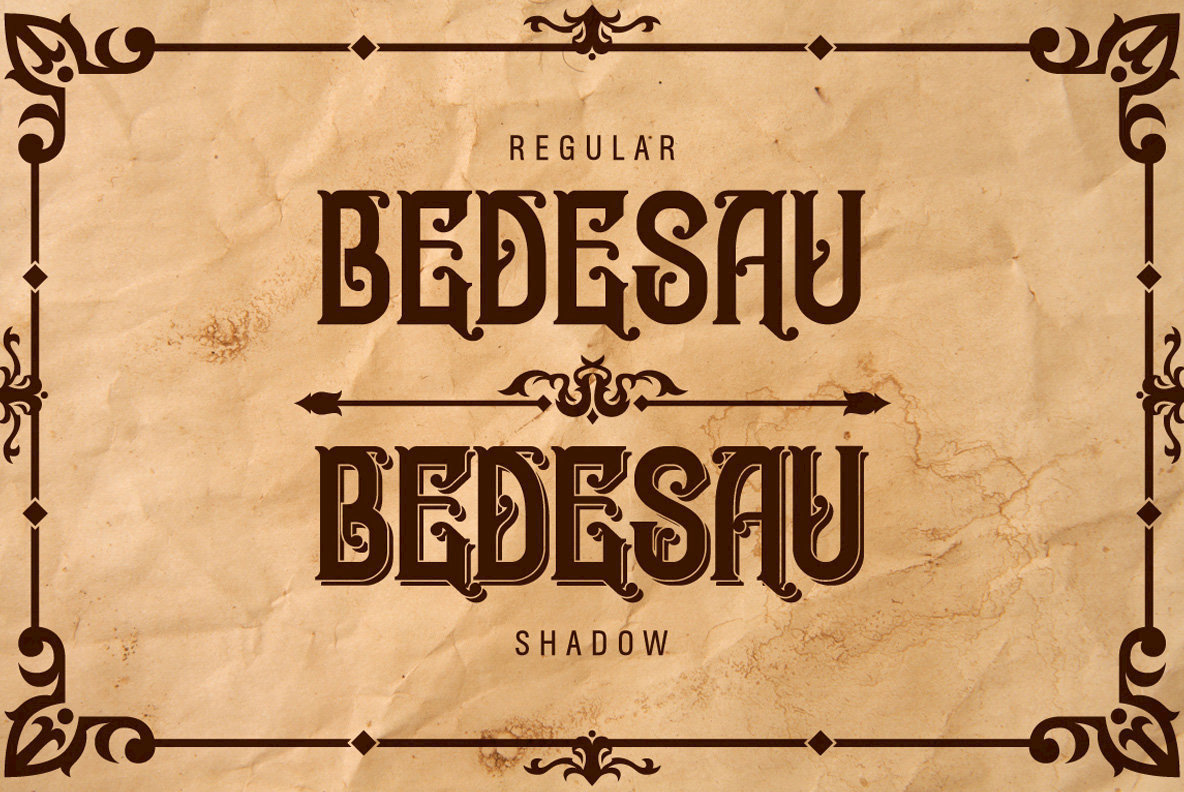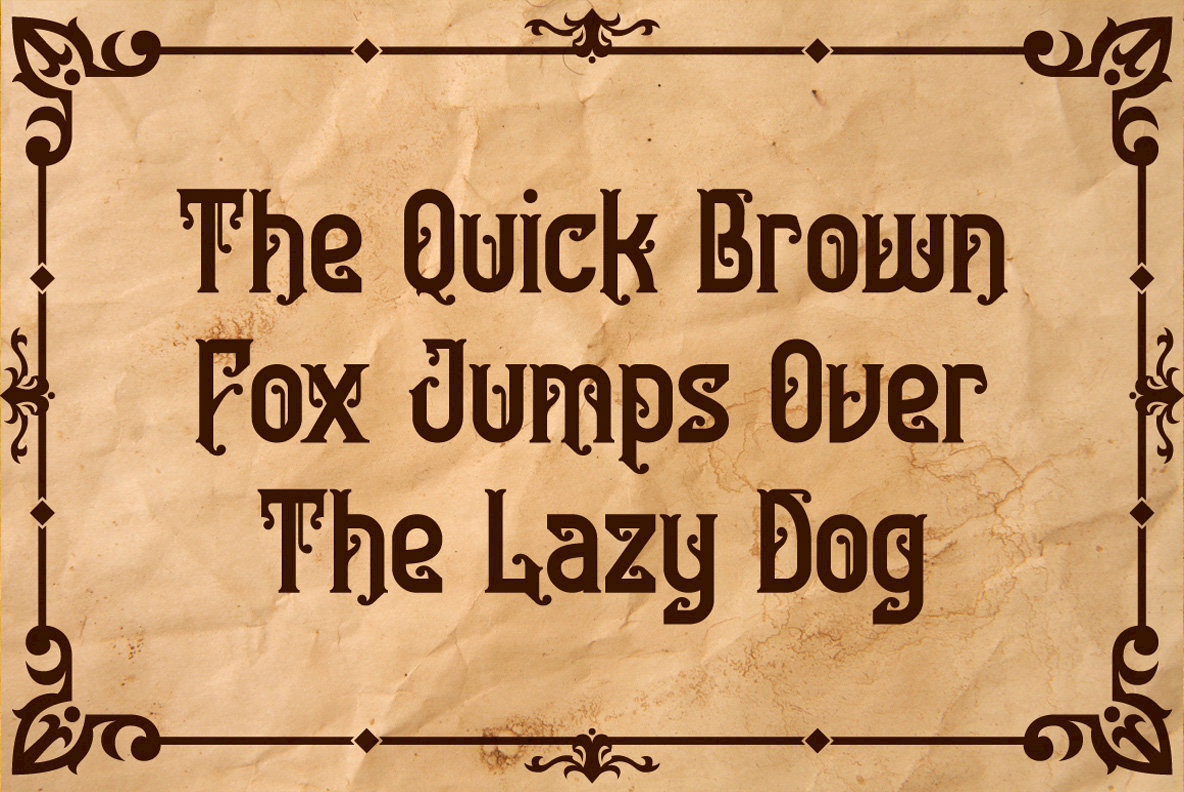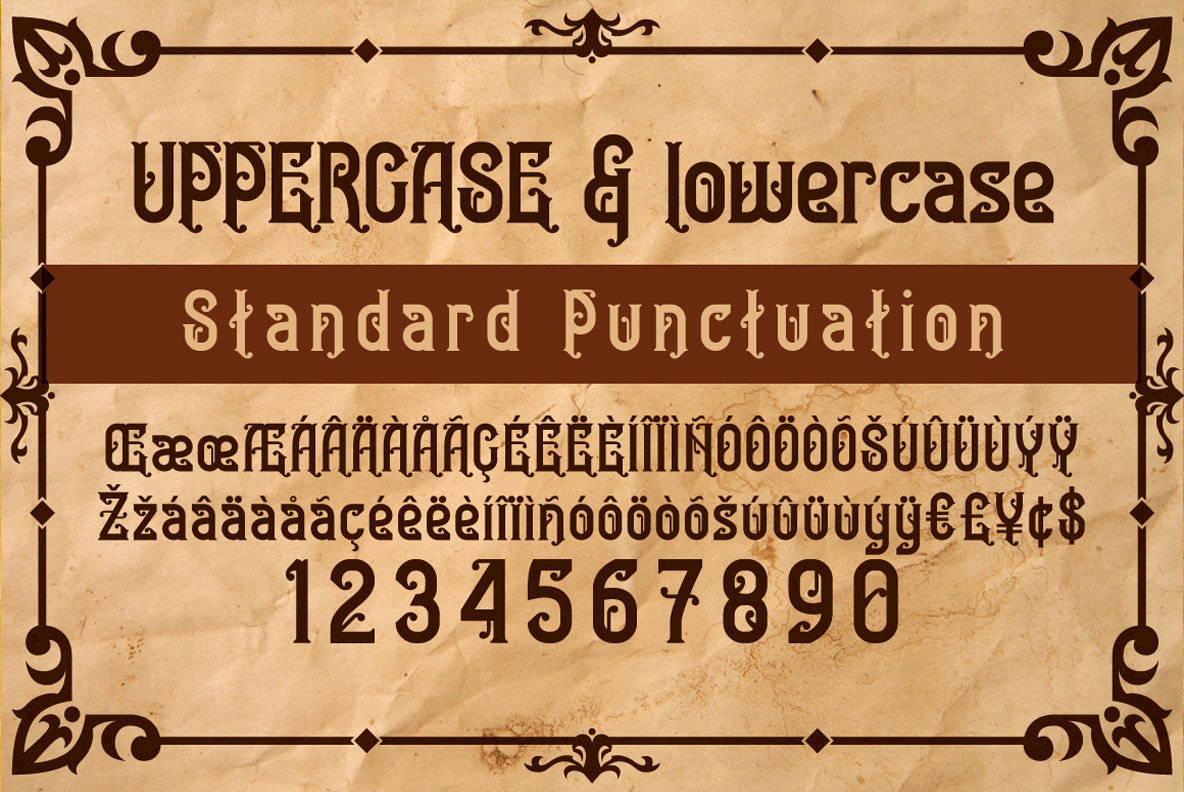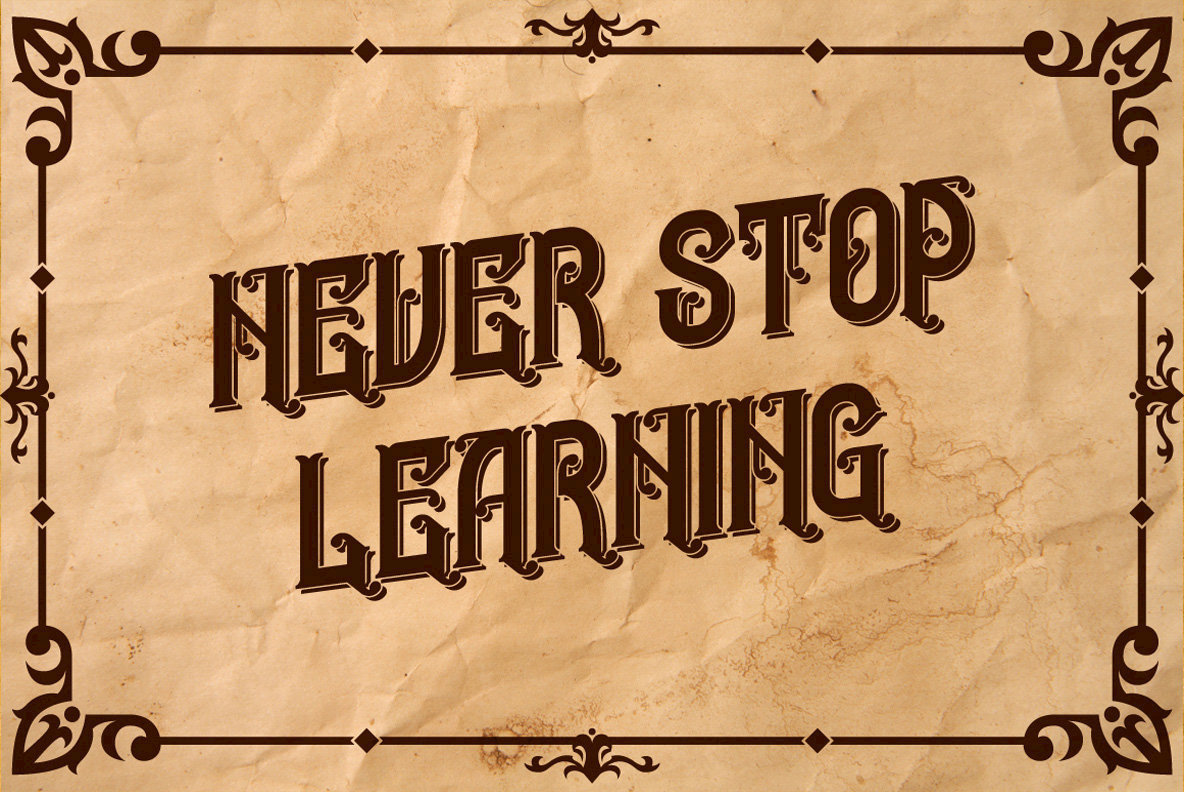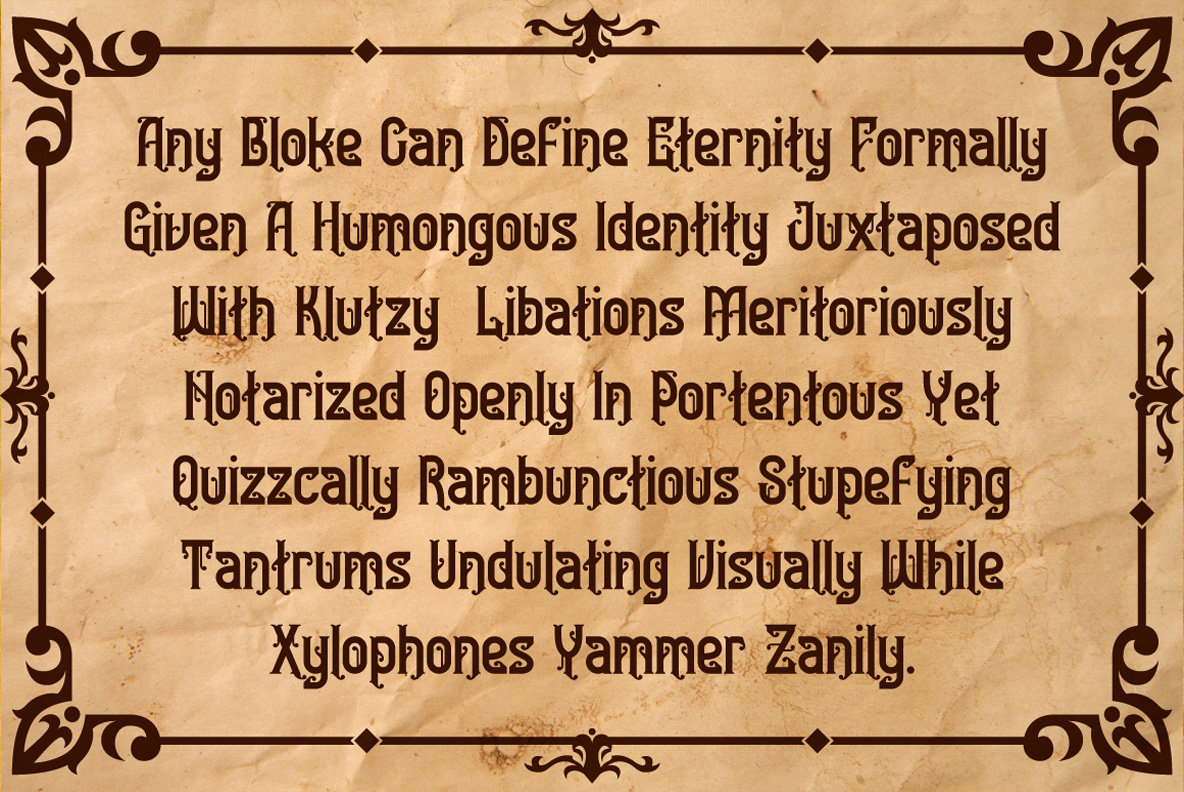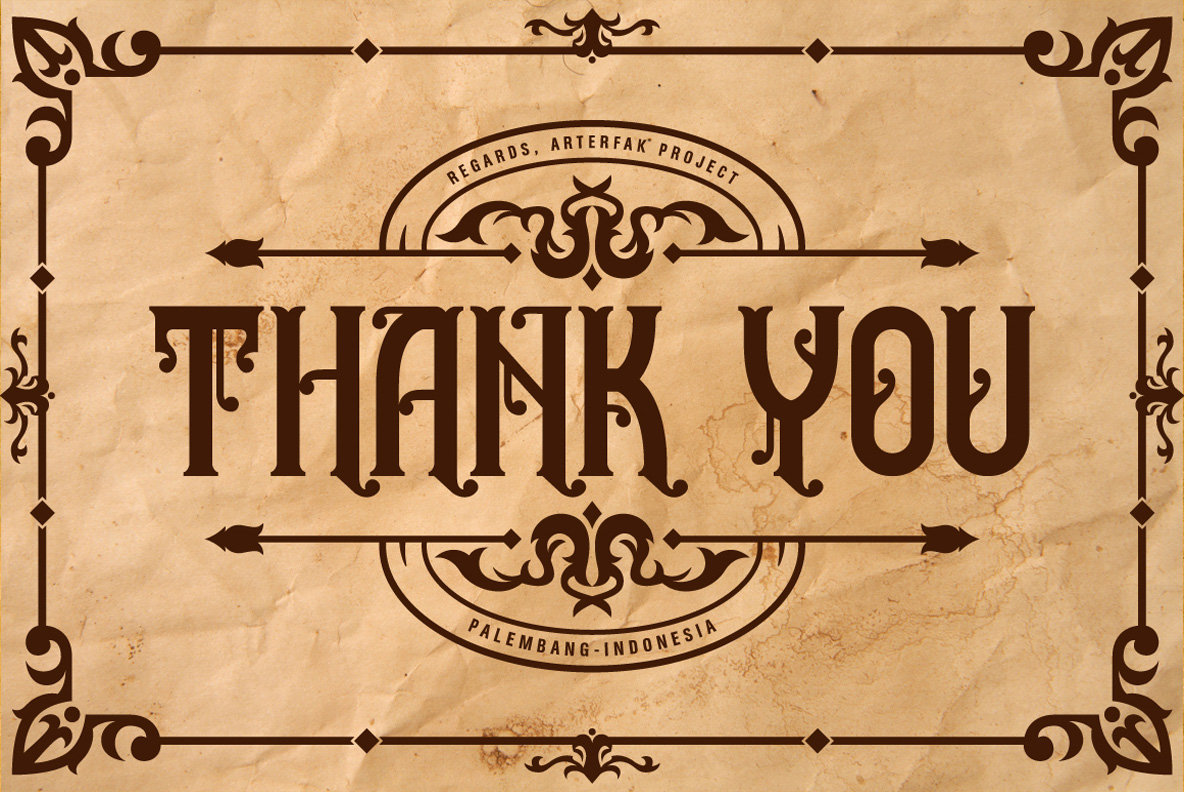
Bedesau Typeface Font
Embark on a typographic journey with the Bedesau typeface, an experimental design that draws inspiration from the Art Nouveau movement. This font seamlessly adapts to various design elements, rendering beautifully in display settings, subheadlines, and body text.Bedesau Typeface: Art Nouveau Inspiration
The shadow style variant is particularly recommended for headlines, enhancing visual impact and drawing attention. This versatile typeface has been rigorously tested across major design platforms including Adobe Illustrator, Photoshop, and InDesign, ensuring its reliability for professional use.